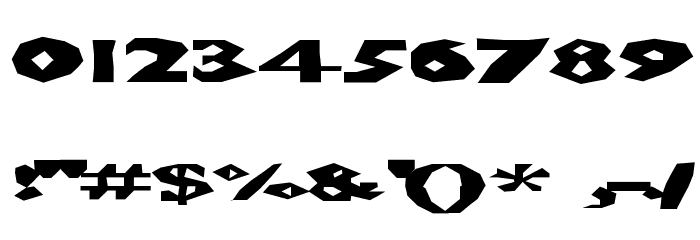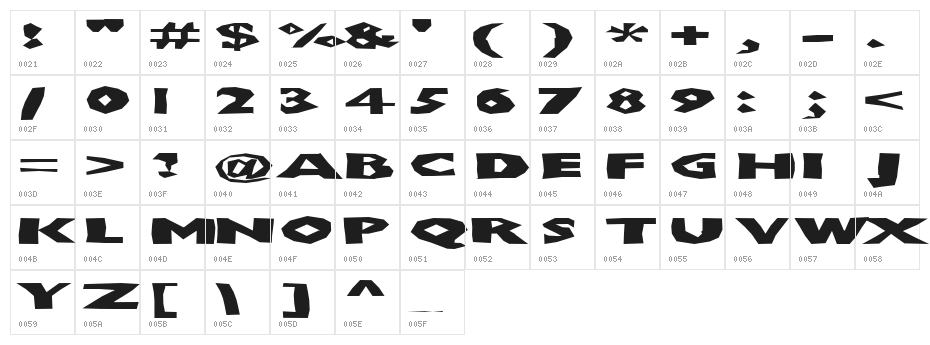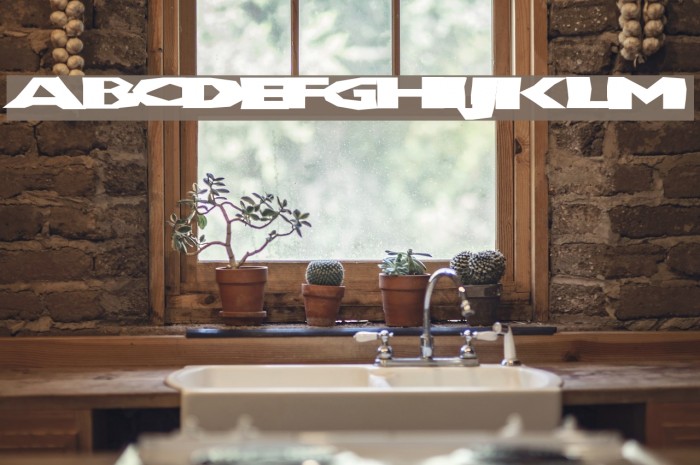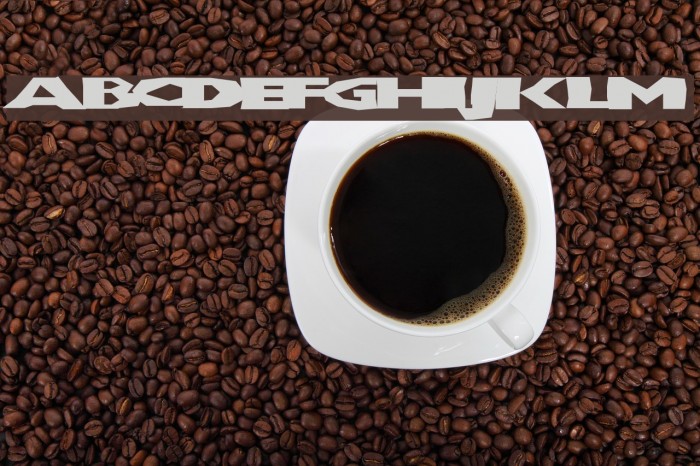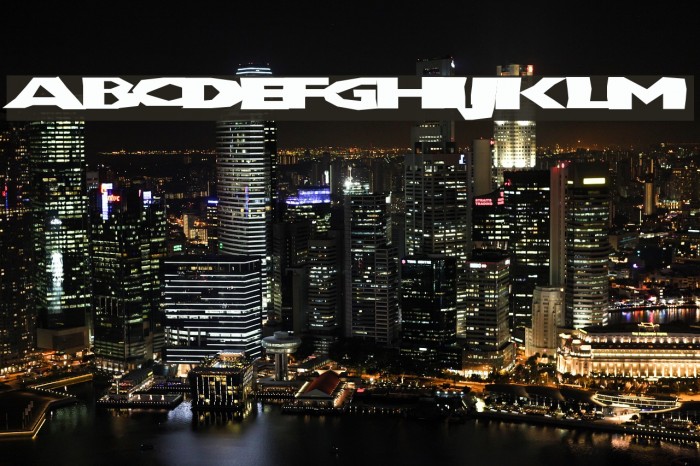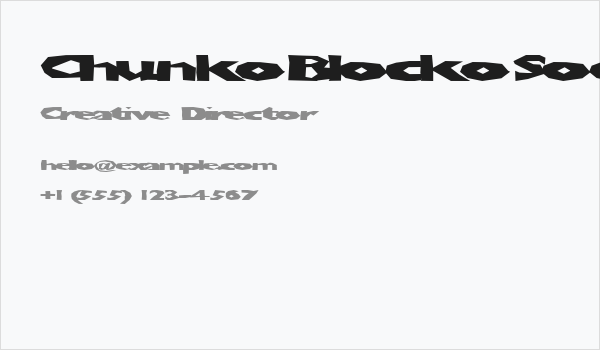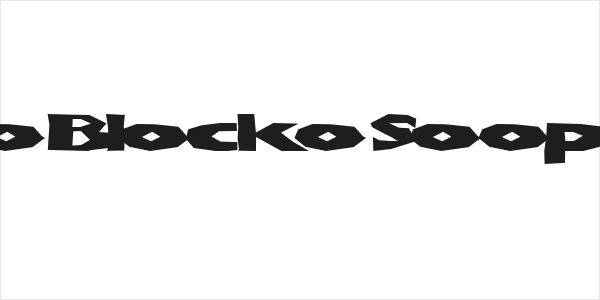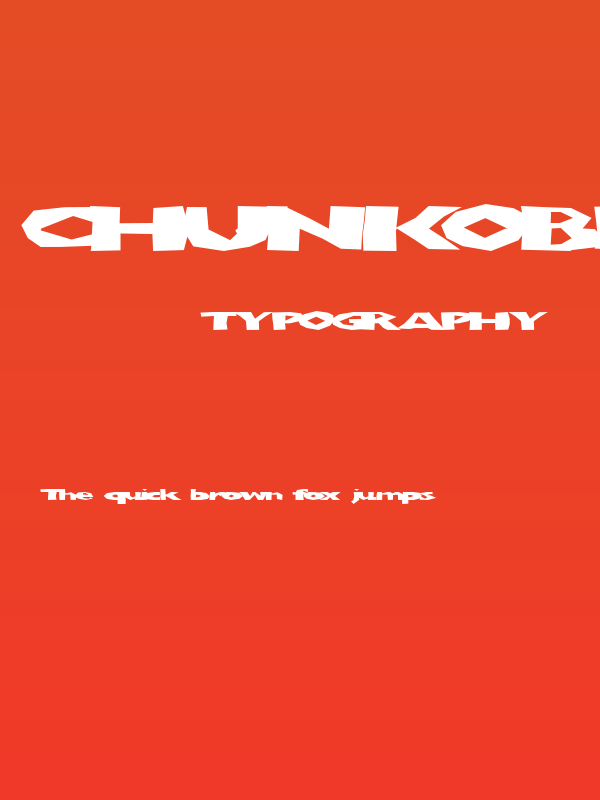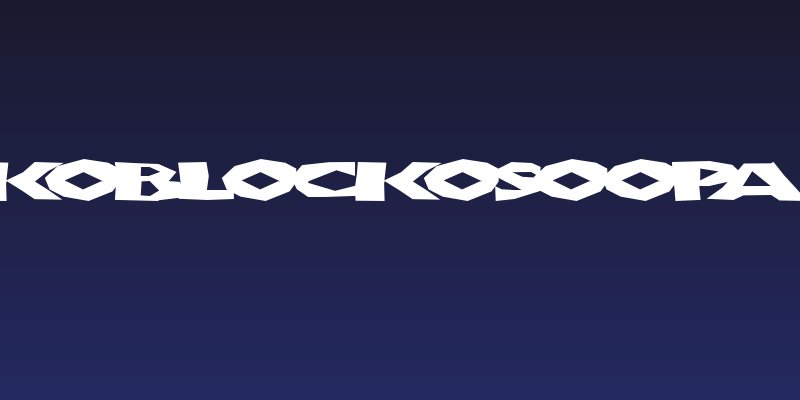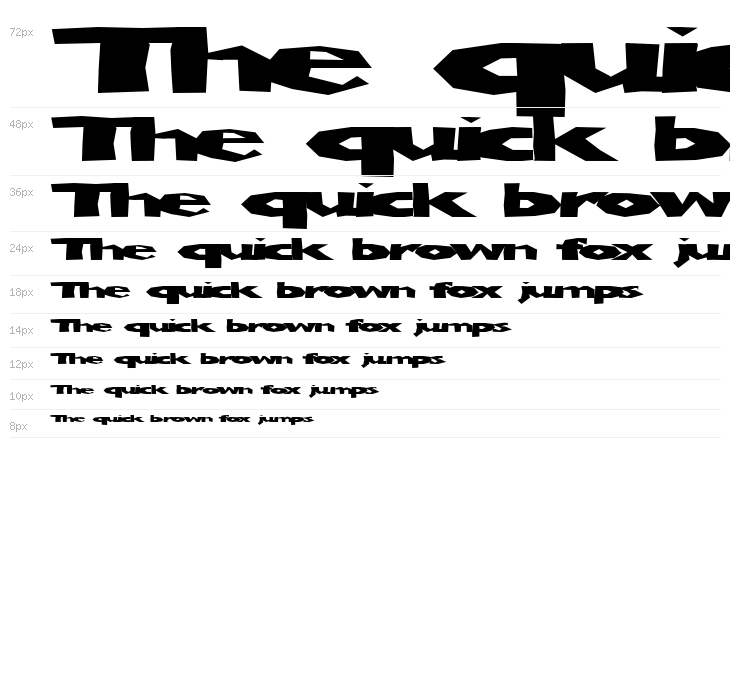
ChunkoBlockoSoopaDark Font
ChunkoBlockoSoopaDark Description
This font exhibits a bold and angular design with a distinctly modern and edgy appearance. The characters are heavily stylized with sharp, geometric cuts and a blocky structure, giving them a unique and striking look. The uppercase and lowercase letters maintain a consistent style, with exaggerated angles and a sense of movement. The numbers and special characters follow the same design principles, ensuring uniformity across the font. This font's boldness and distinctive style make it stand out, ideal for projects that require a strong visual impact.